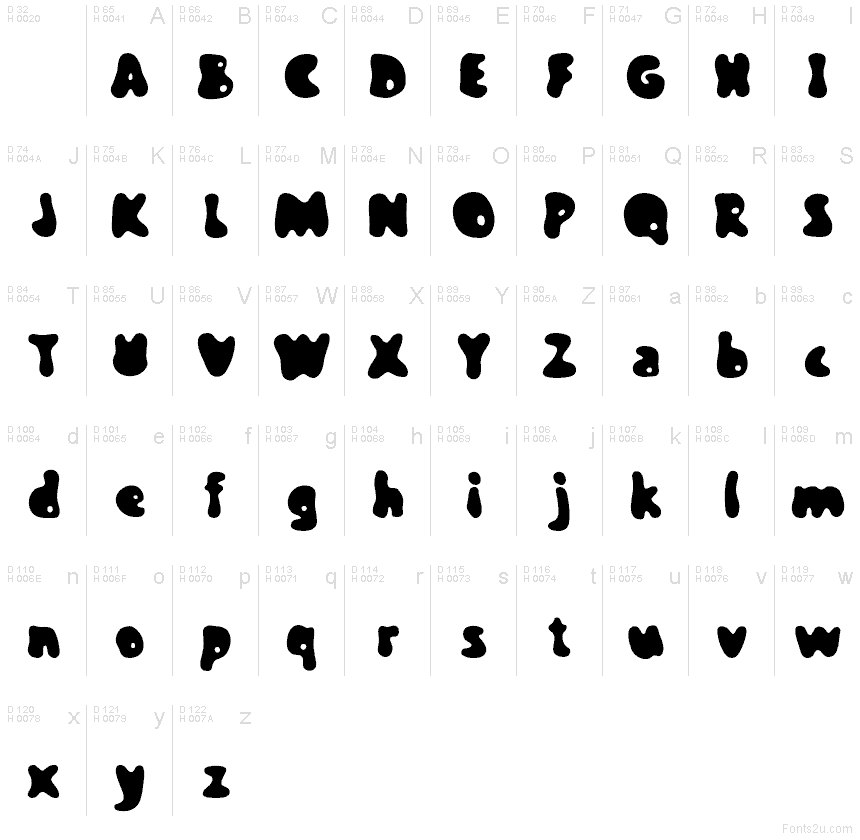
CS Glorius Regular Demo
CS Glorius font by Craft Supply Co. is a display typeface with a whimsical feel and retro influence. Its rounded, organic shapes present an overall thick appearance inspired by the 1970s style, bringing forth a casual tone to designs and a friendly vibe. The san serif font is available in bold weight with all its magical features ready to be exploited.